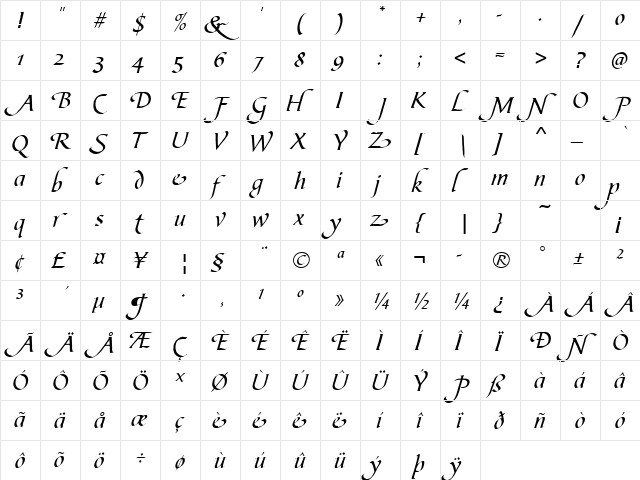
URWBiotSwaT Regular
Design Context for URWBiotSwaT Typeface
URWBiotSwaT is a composed and adaptable typeface that performs quietly and consistently across a wide range of design contexts.